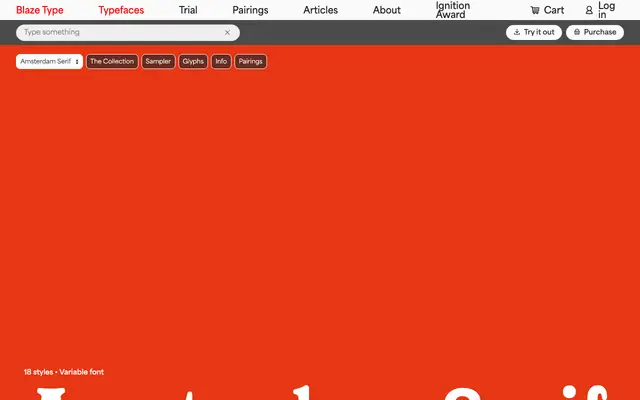
Amsterdam Serif
A revival of a wood typeface found in a Brussels printing workshop, reinterpreted with calligraphic detail across nine weights and matching italics.
Based on wooden letters discovered in the type case of Unitype, a Brussels printing workshop, the design preserves the original's distinctive terminations while stabilising inherited shapes for use at both text and display sizes. Nine weights from Thin to Black, each with a matching italic, are supplied as variable fonts alongside static cuts. The family is intended for editorial systems, signage and branding where a historical flavour is needed without period eccentricity.
A revival of an early 20th-century wood typeface with calligraphic terminations, stabilised for contemporary use across text and display settings.